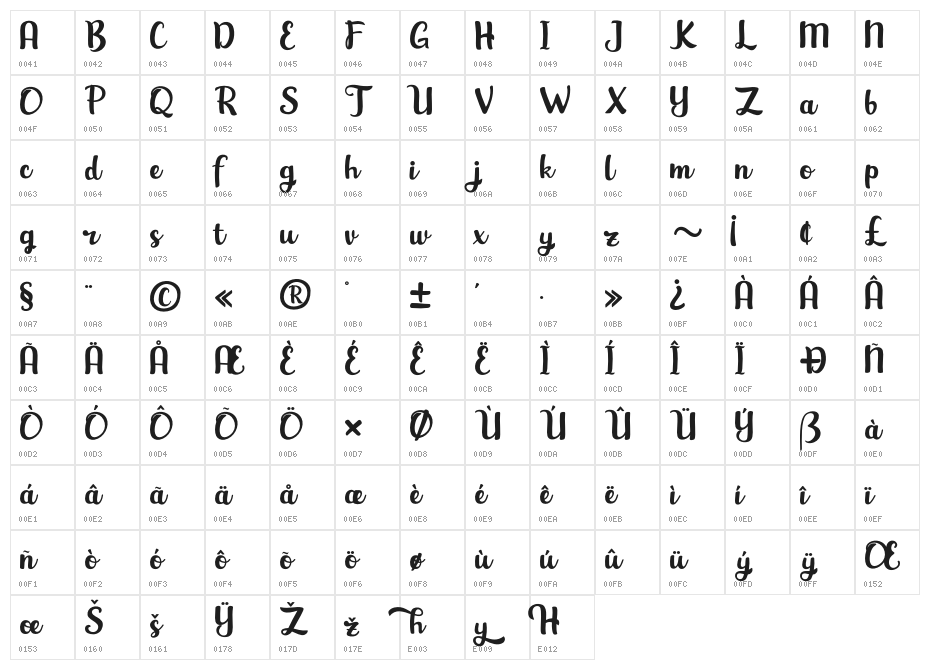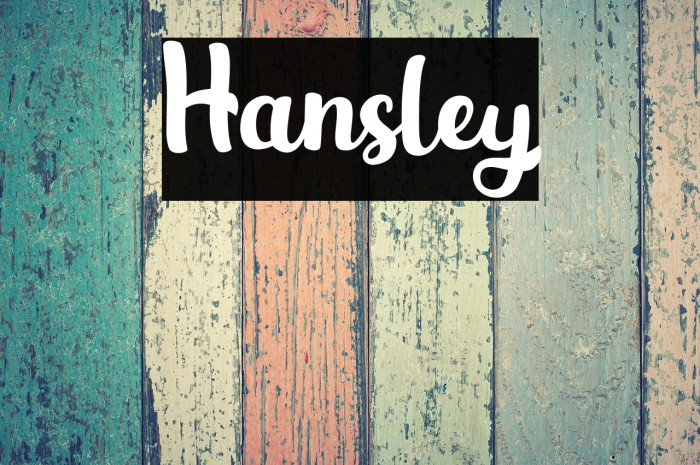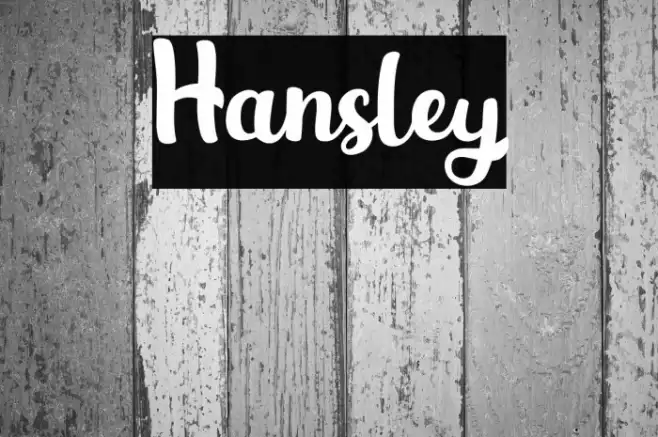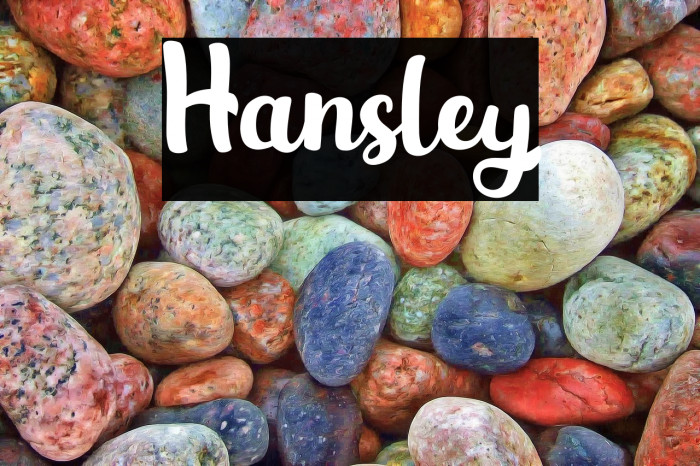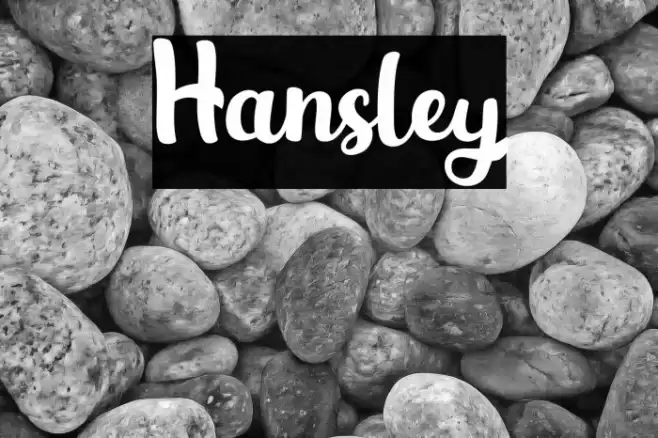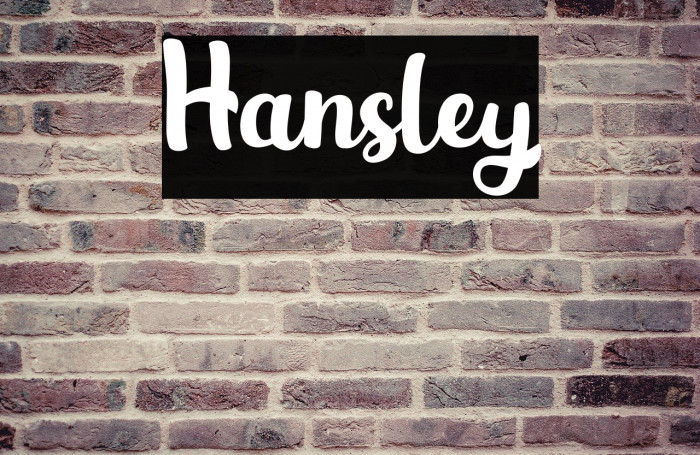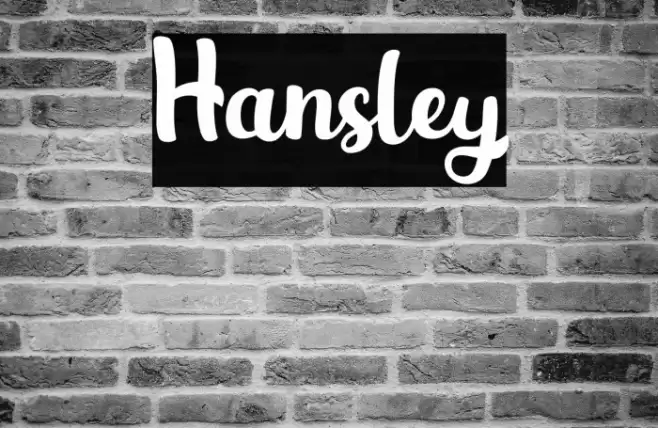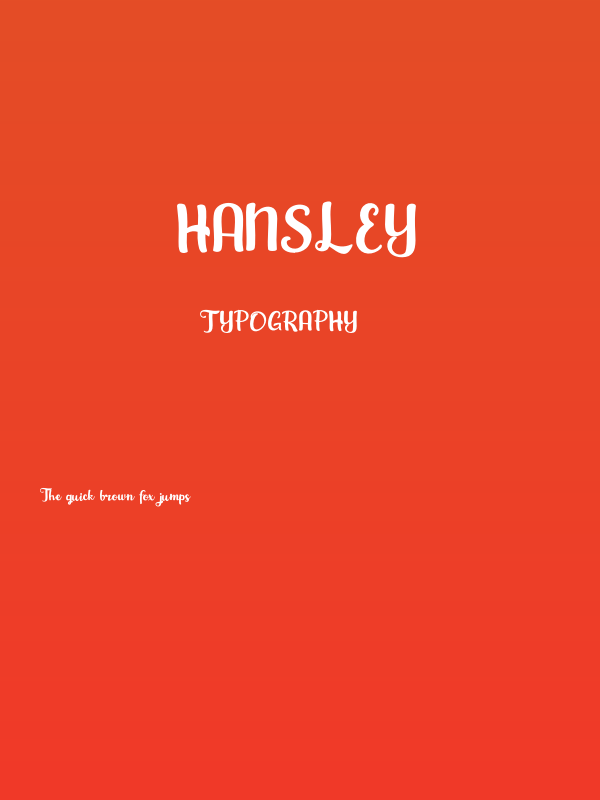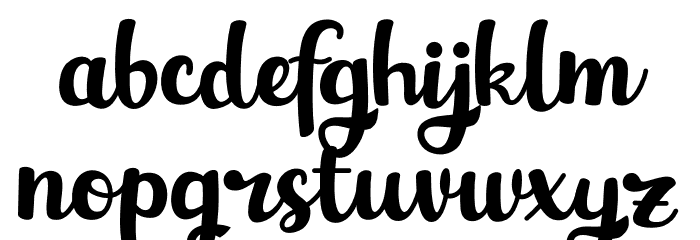
Hansley Font
Hansley Description
This font features a bold and playful script style with a handwritten feel. The letters are characterized by their thick strokes and rounded edges, giving them a friendly and approachable appearance. The uppercase letters exhibit a uniform height, while the lowercase letters have a slight slant, adding a dynamic flow to the text. The font maintains a consistent weight throughout, ensuring readability while retaining its decorative charm. The special characters are integrated seamlessly, matching the overall style of the alphabet. This font is ideal for projects that require a touch of whimsy and creativity.
Proposed ProjectsGreeting cards, invitations, playful branding, children's books, and creative posters.